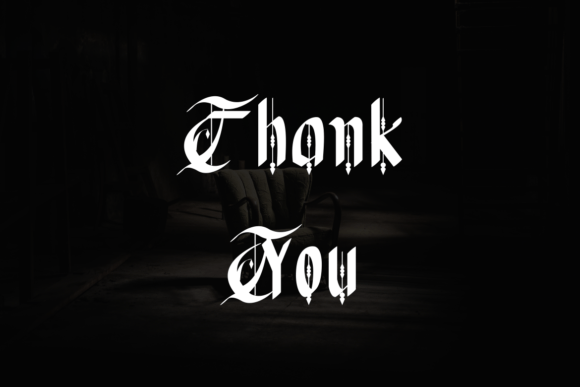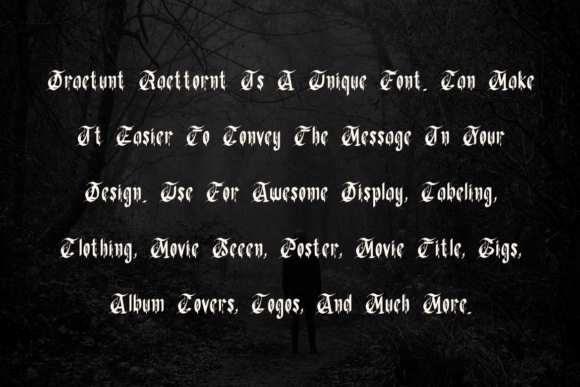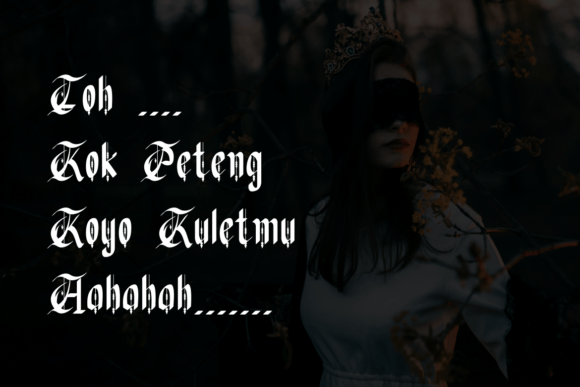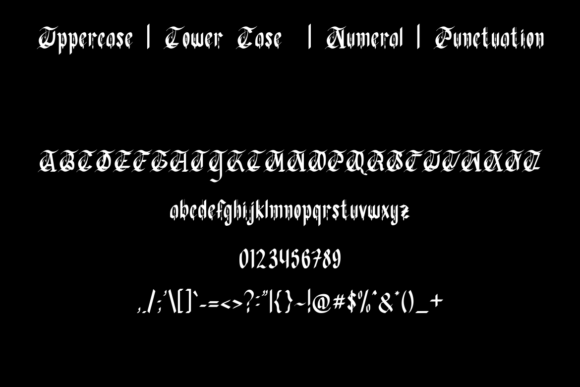
Introduction to Dractunt Racttornt Font
Have you ever been in the middle of a creative project, staring at a blank canvas or screen, trying to come up with the perfect design element to bring your vision to life? That’s where a valuable design resource like the Dractunt Racttornt Font comes in.
This bold and assertive blackletter font has the power to elevate any creation, whether it’s a poster, logo, or website design. With its high-quality design and transparent background, it’s the perfect addition to any designer’s library.
Key Features of Dractunt Racttornt Font
- Unique, Hand-Drawn Design: The Dractunt Racttornt Font features a distinctive, hand-drawn design that adds a touch of creativity to any project.
- Perfect for Creative Projects: The Dractunt Racttornt Font is ideal for designers working on creative projects, including branding, advertising, and editorial design.
Honest Review: Dractunt Racttornt Font
I recently had the chance to work with the Dractunt Racttornt Font, and I must say it’s a unique addition to any design project. As a designer, I appreciate high quality design resources like this font, which can elevate a creative project to the next level.
- ✨ The font has a bold, edgy look that can add a touch of sophistication to any design.
- ⚠️ The font may not be suitable for projects that require a more traditional or classic look.
- ⚠️ Some characters may not be as smooth or polished as others.
Overall, I was impressed with the Dractunt Racttornt Font’s potential for adding a unique touch to a design project. While it may not be perfect, it’s definitely a valuable resource for designers looking to add some edge to their work.
The Dractunt Racttornt Font is a high-quality font that can be used in various creative projects, such as branding, packaging, and advertising. It is ideal for designs that require a unique and eye-catching font. Some common use cases include:
Remember to use the font in a way that complements your design and meets the needs of your project.